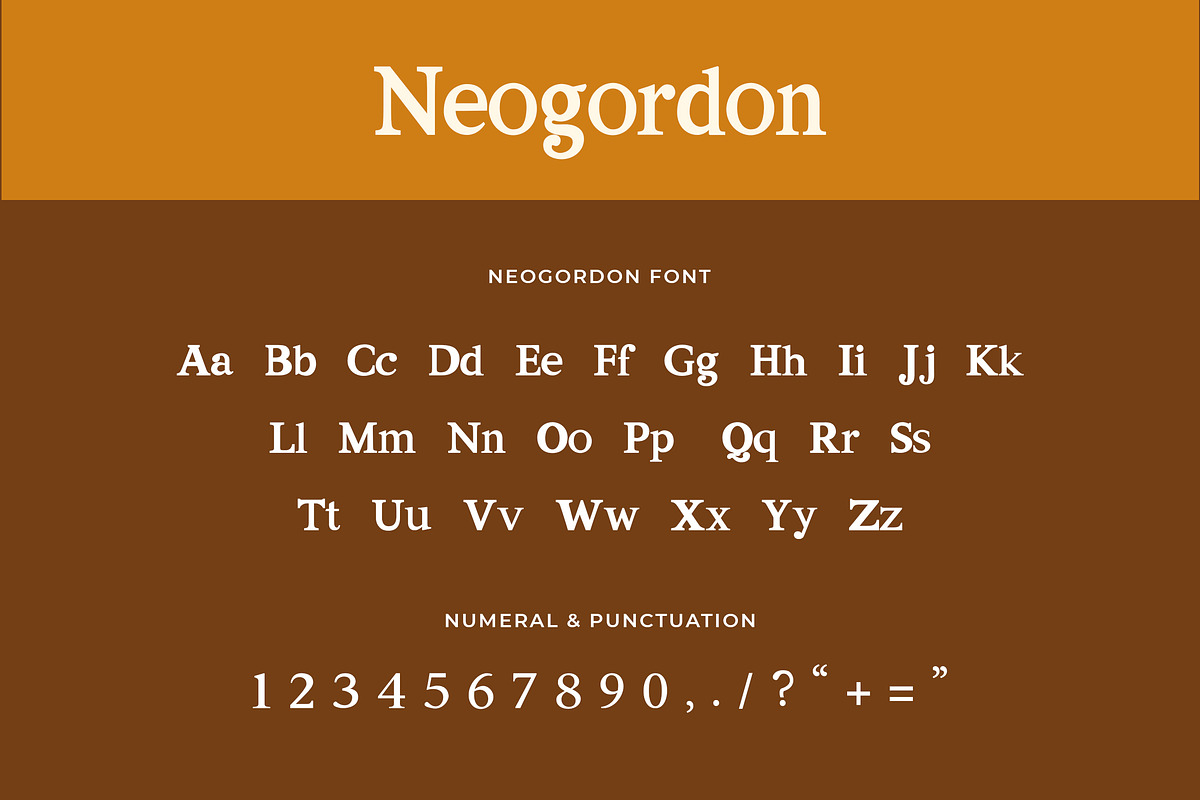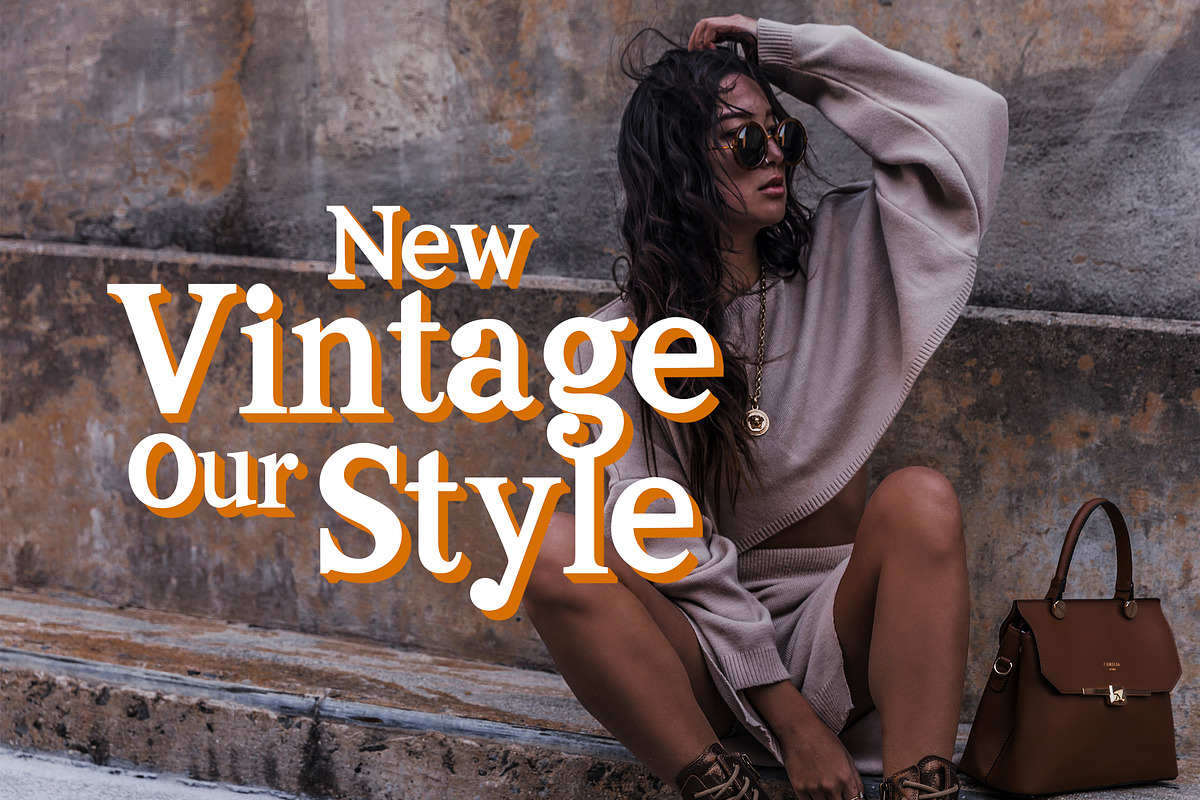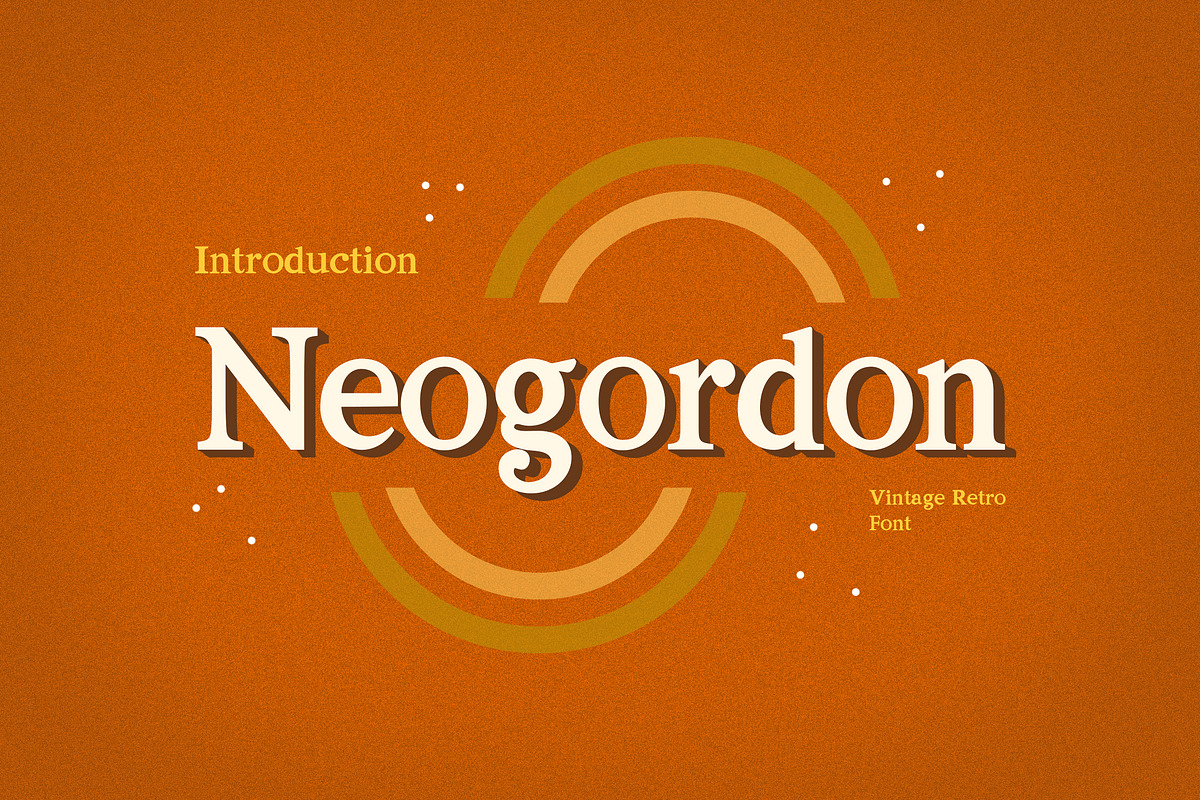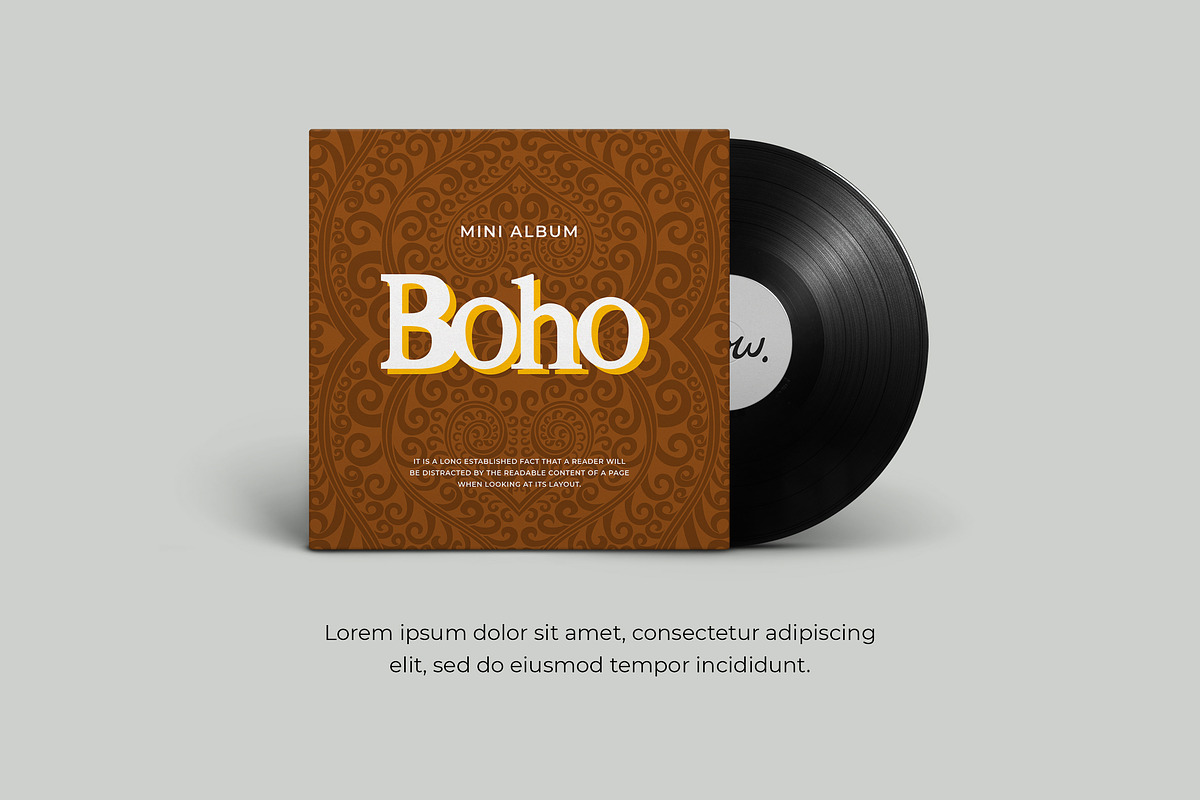
Neogordon Serif Font
Neogordon is a serif font designed with a blend of modern and vintage styles, this font is equipped with ligature, alternative letters and doodles, which gives you unlimited design possibilities, this font is great for your work such as posters, logos, magazines, covers, banners , t-shirts and headers, or even large-scale artwork.
Neogordon Serif Font by UICreative fits naturally into Branding, posters, packaging, typography.